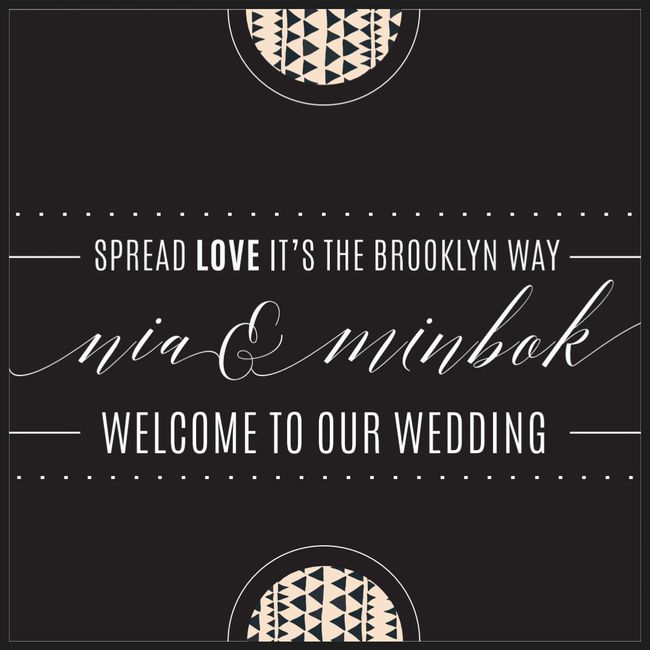
Need help pairing fonts!
So I'm trying to do a faux chalkboard (like these http://www.missbizibee.com/diy-chalkboard-wedding-signs/). I'm not sure how I feel about the fonts I chose (attached)...